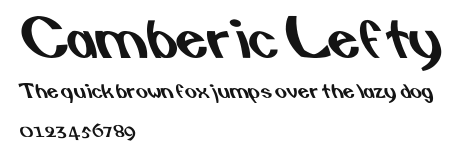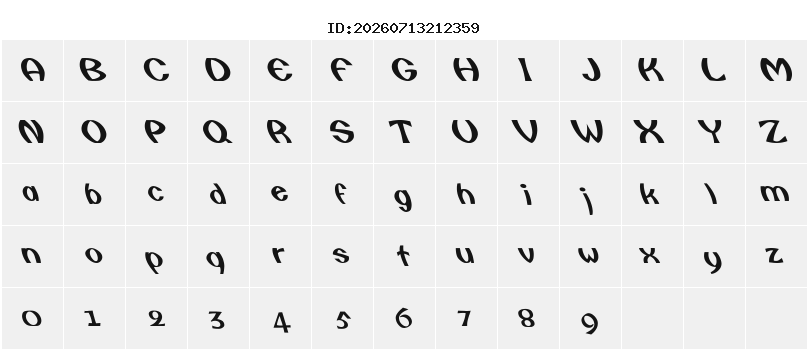
• Font Name: Camberic Lefty
• Full Font Name: Camberic Lefty
About Camberic Lefty.ttf
Camberic Lefty.ttf is a modern, elegant sans-serif font designed for ultimate readability and visual harmony. Perfect for branding, headlines, web design, and print materials.